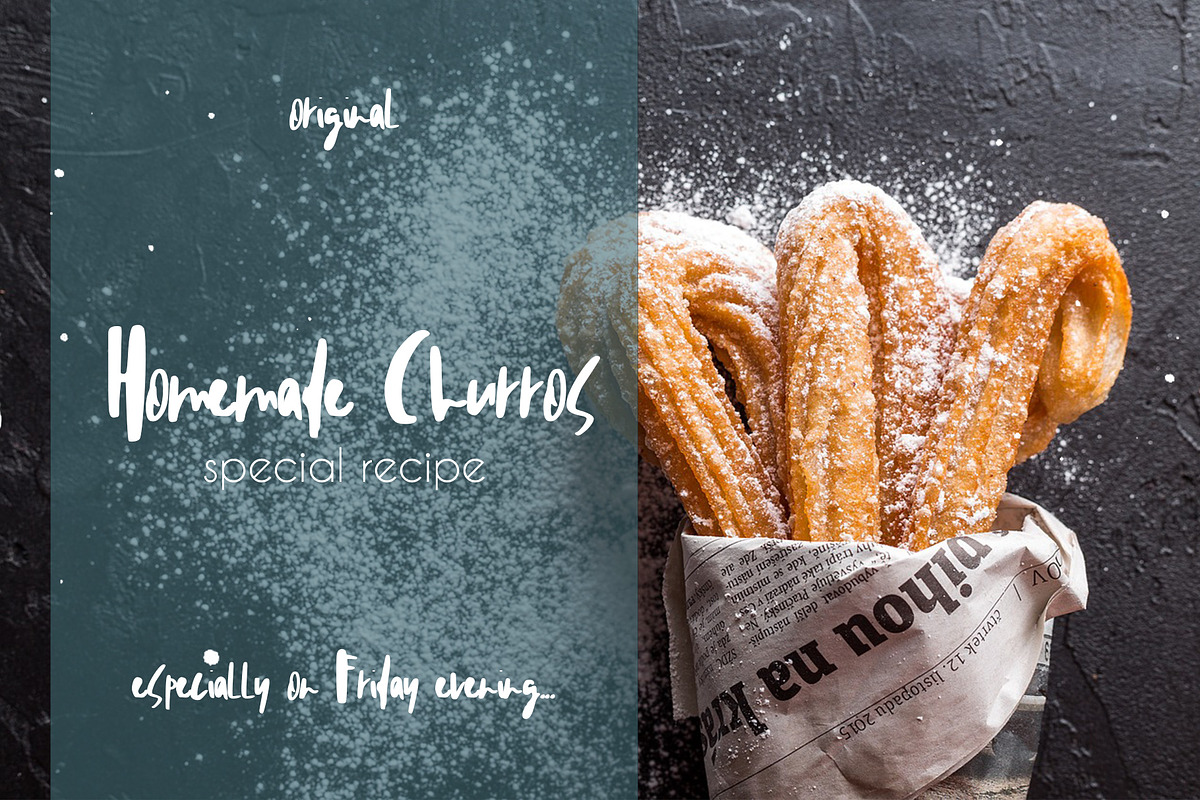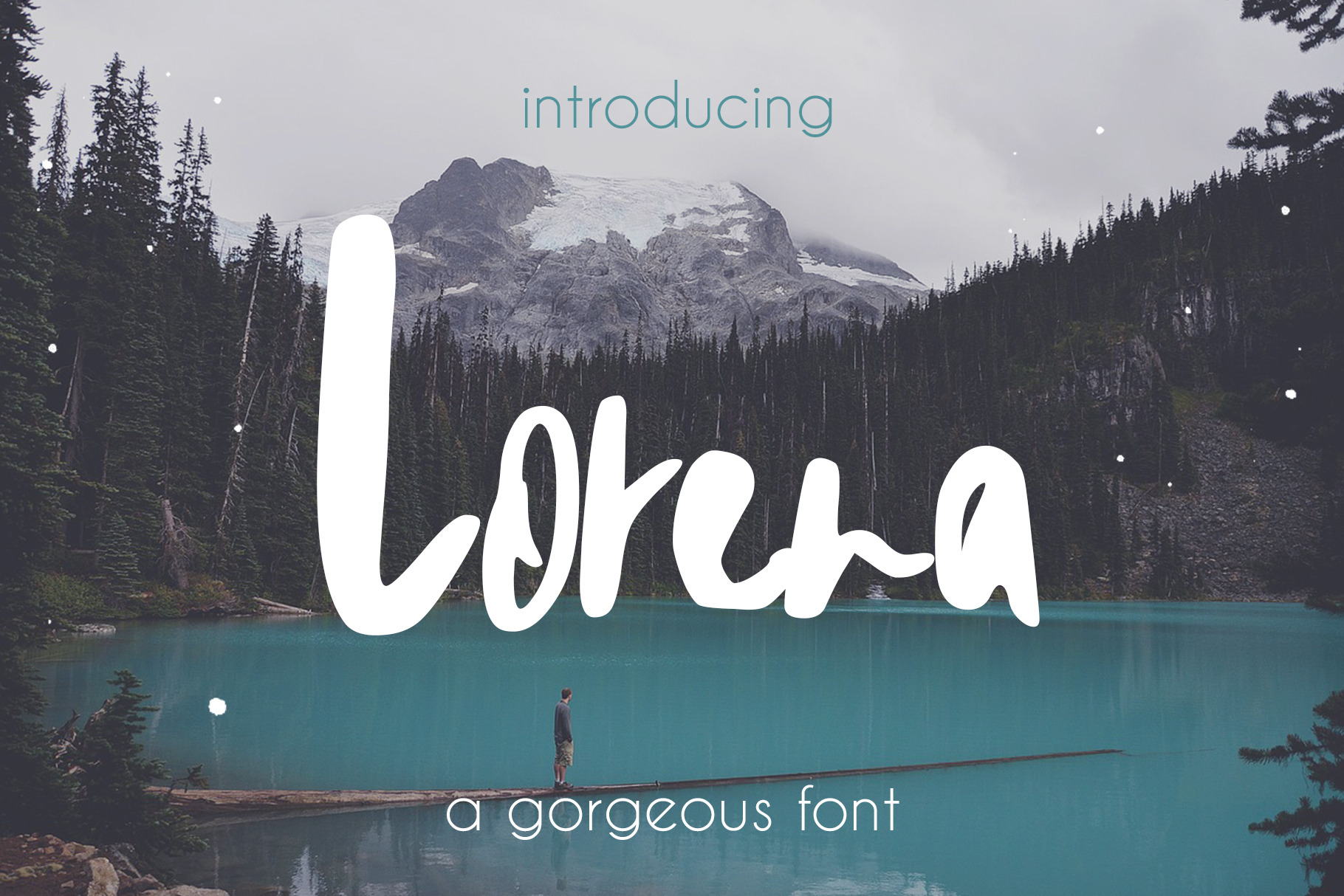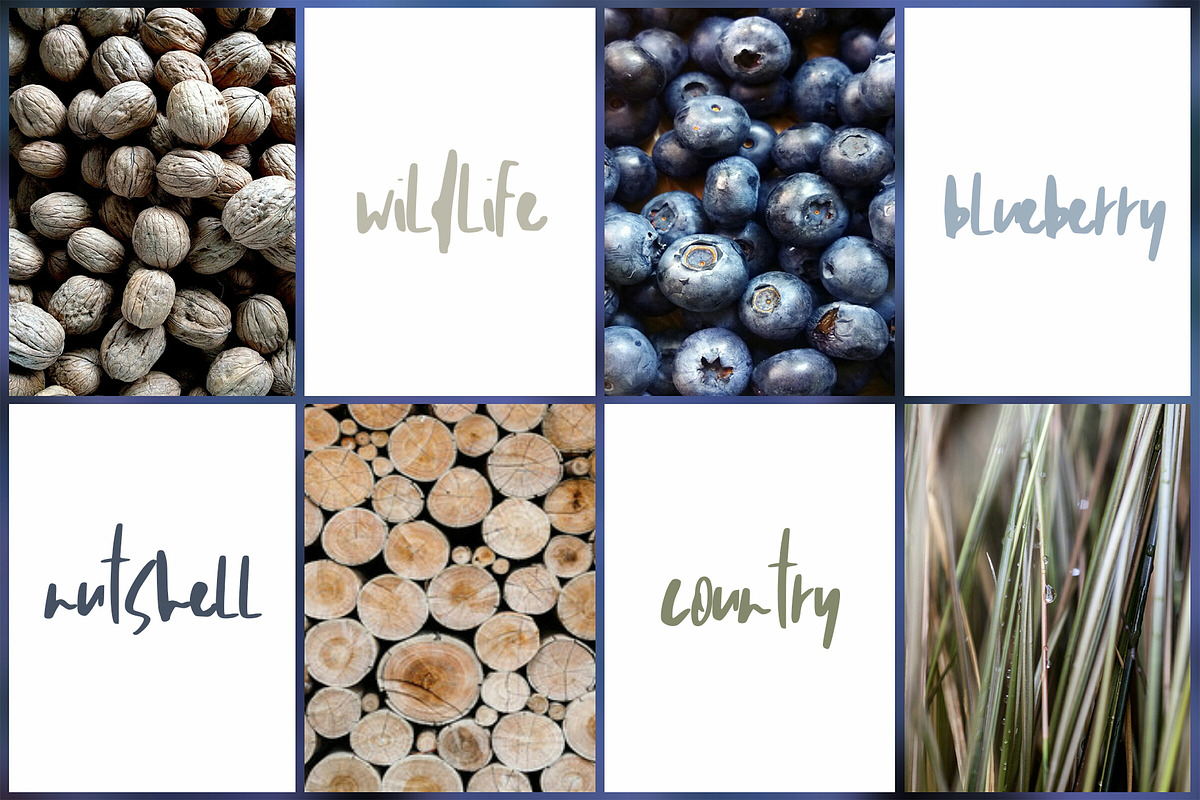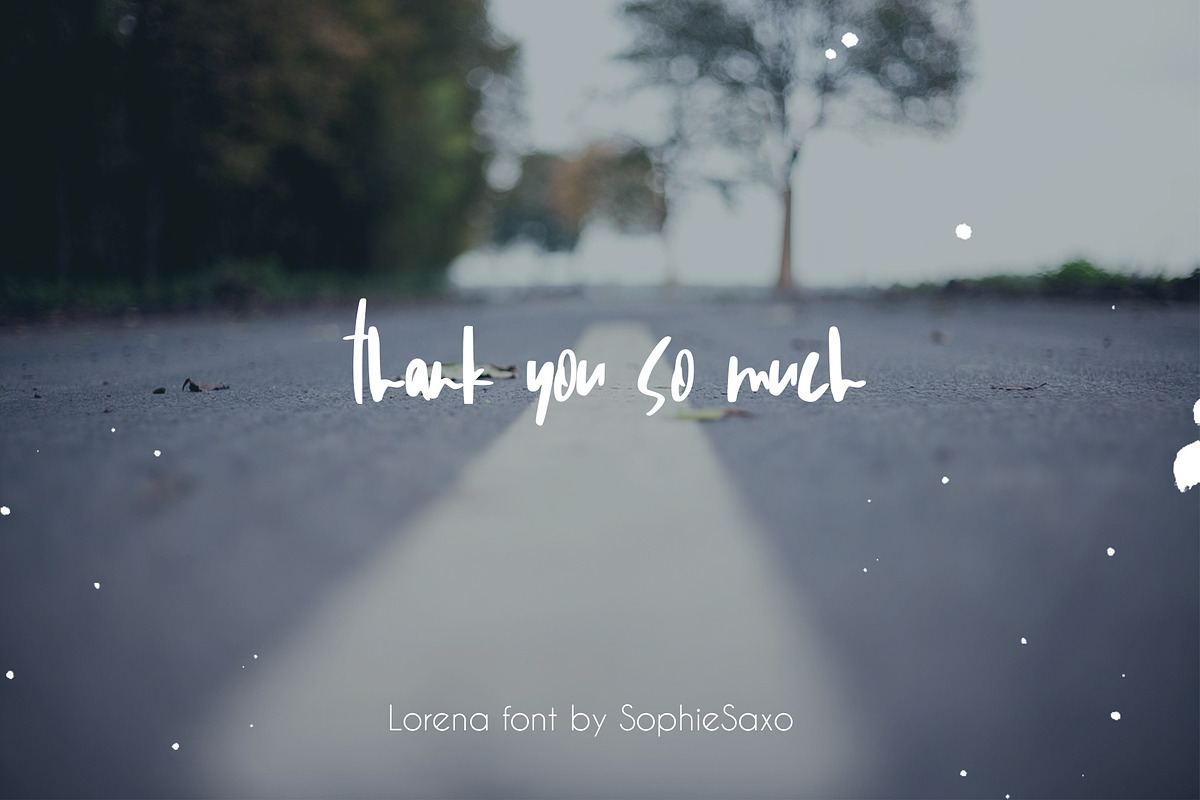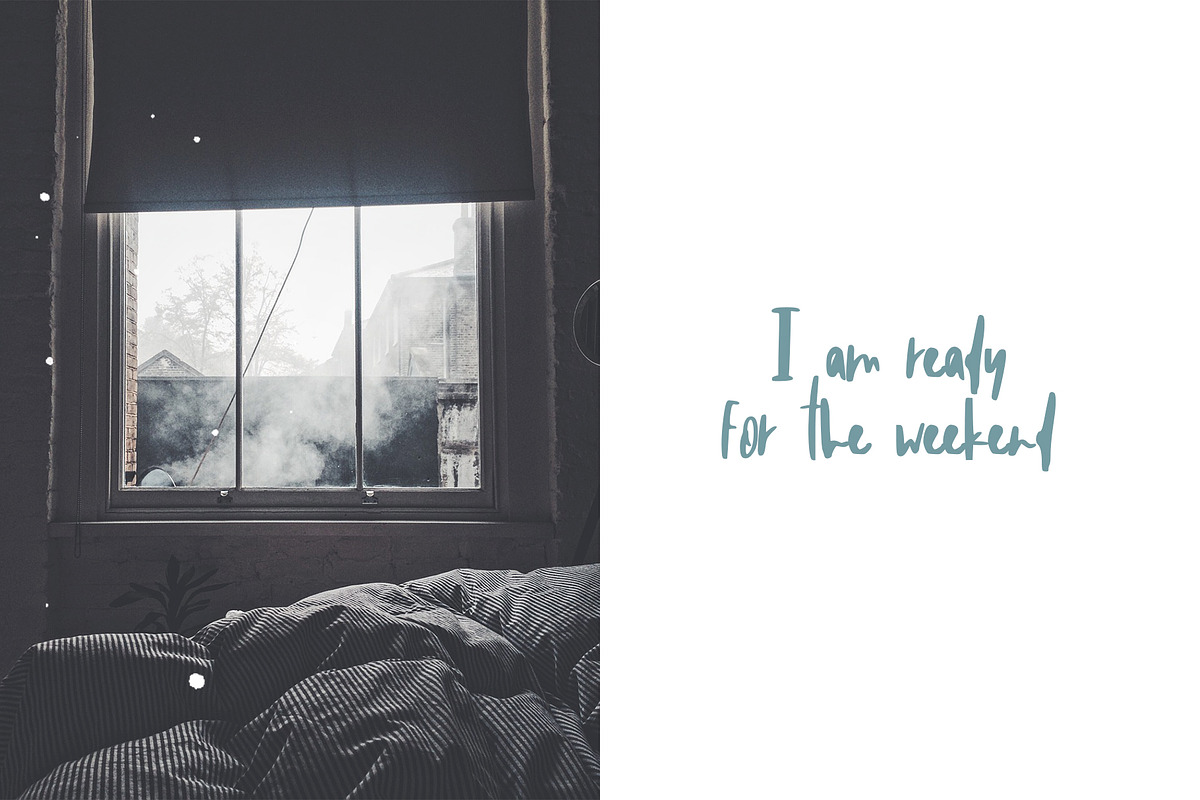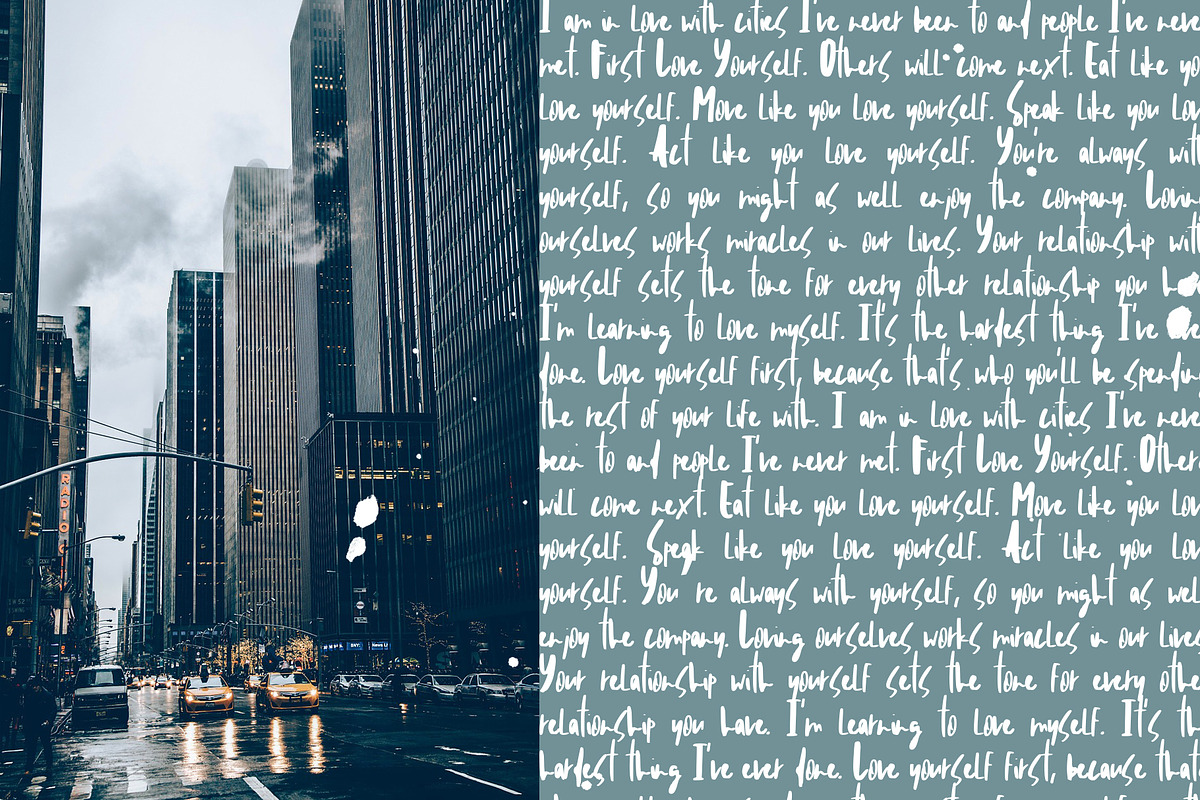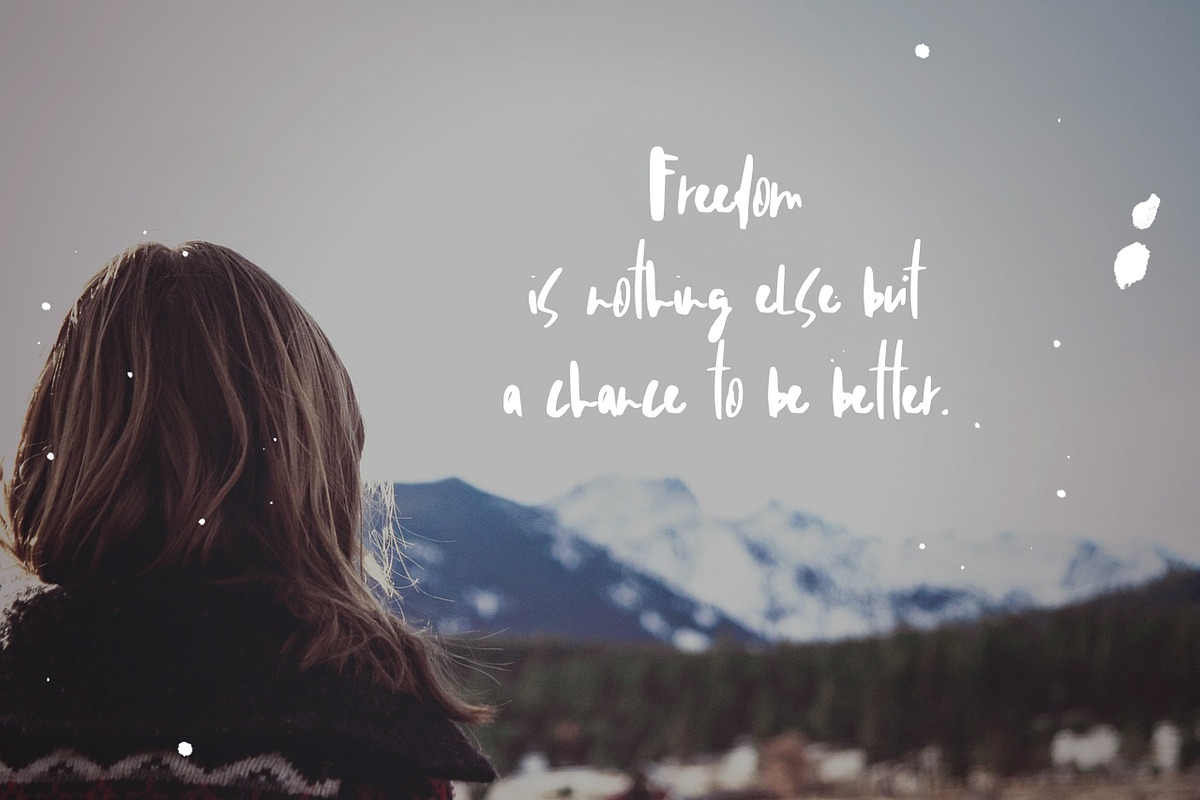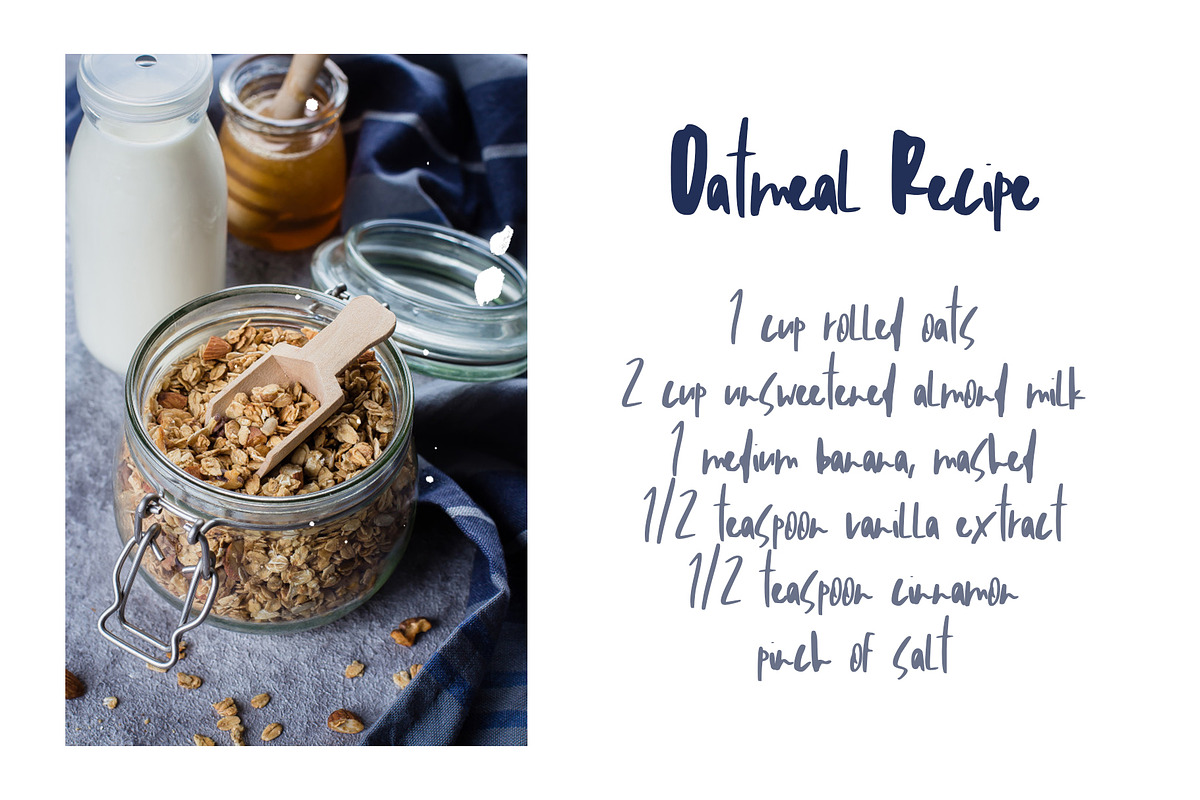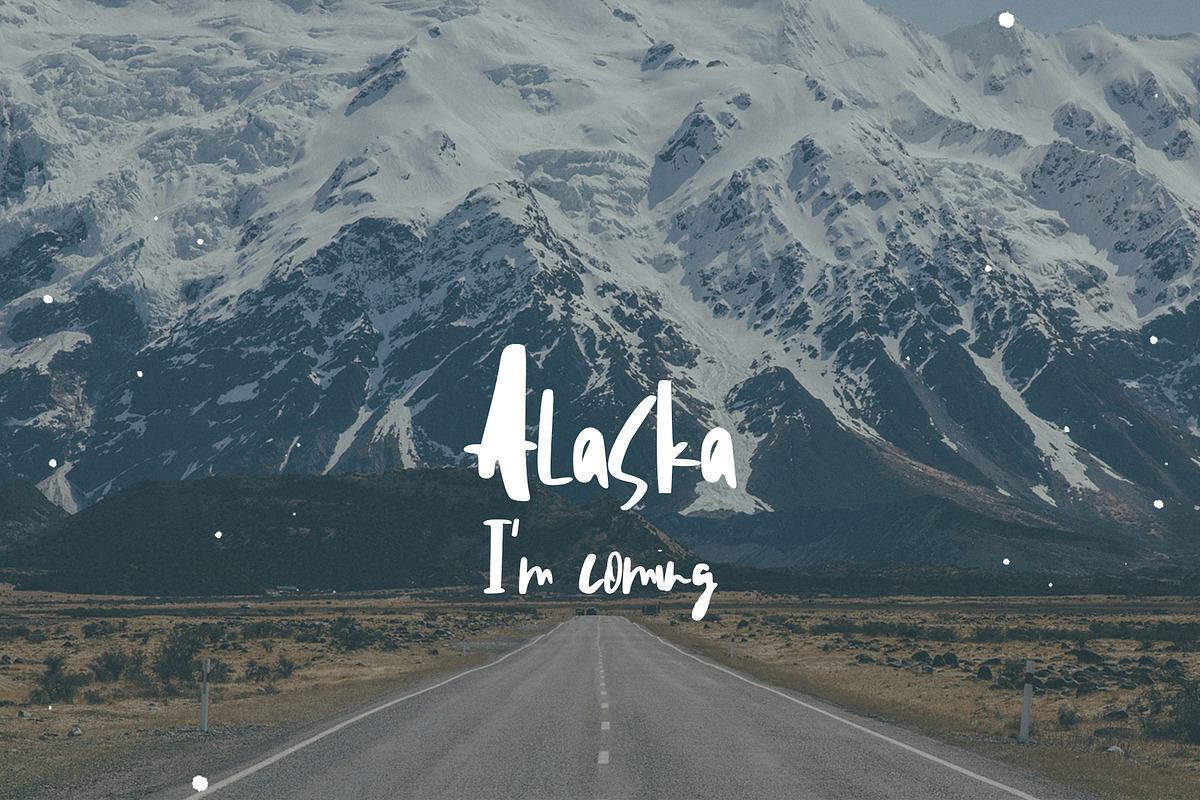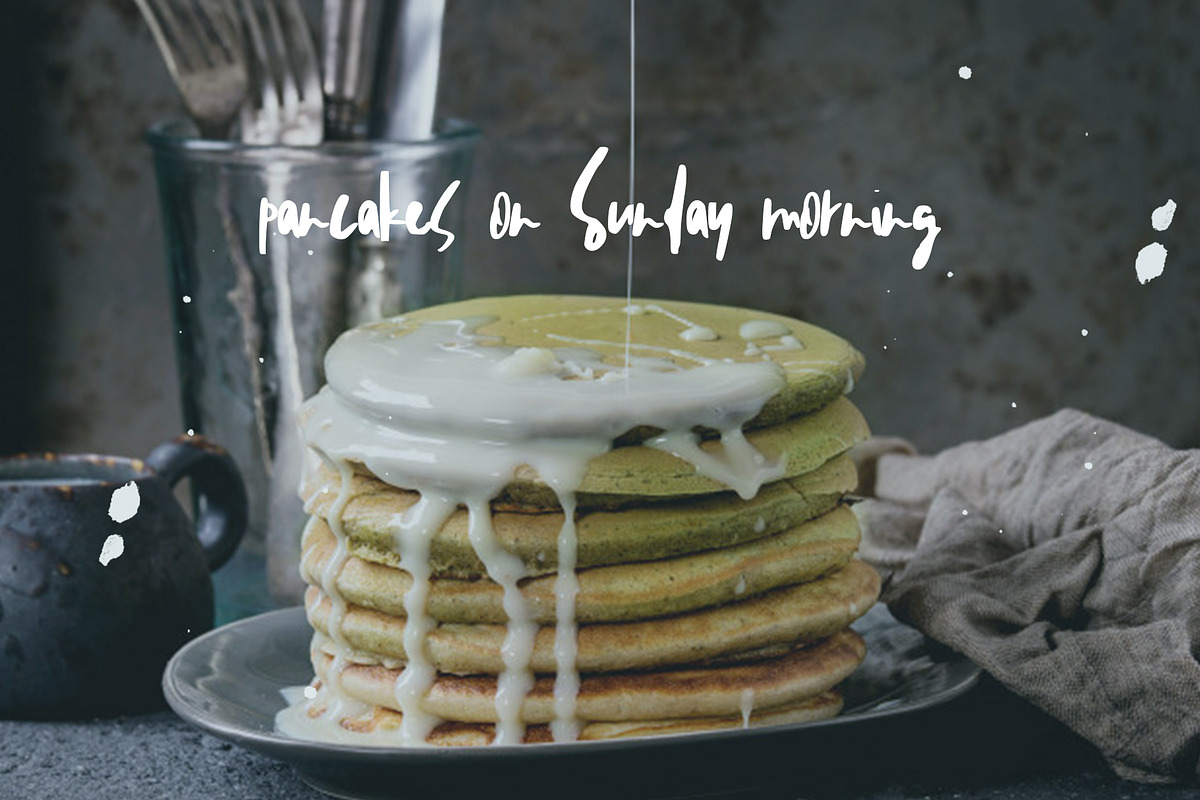
Lorena Font
Introducing Lorena, a gorgeous unique handwritten font.💗 Perfect for any calligraphic and logo designs, wedding and birthday invitations. Inspired by the nordic, scandinavian feeling especially in autumn.
Lorena font contains upper & lowercase characters, full set of punctuation and numerals.